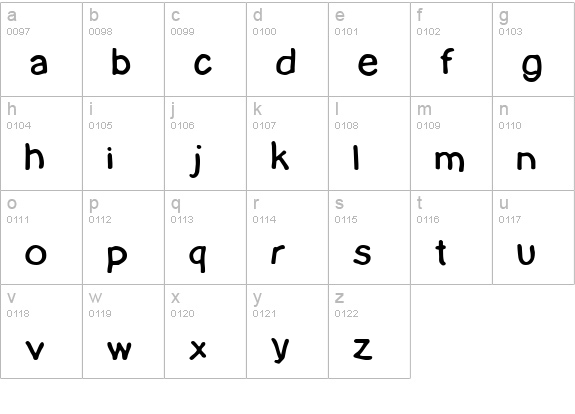
Lamebrain -BRK- Font Details
Lamebrain -BRK- font is a playful and quirky typeface that adds a touch of whimsy to any design project. With its bold and rounded letterforms, this font is perfect for creating eye-catching headlines, logos, and social media graphics. Featuring a unique mix of uppercase and lowercase letters, Lamebrain -BRK- font exudes a friendly and approachable vibe. Its slightly uneven strokes and imperfect curves give it a hand-drawn feel, making it ideal for adding a personal touch to your designs. One of the best things about Lamebrain -BRK- font is that it is completely free! Yes, you heard that right. This fantastic font is freely available to download at FontsMarket.com. Whether you're a professional graphic designer or a hobbyist looking to add some flair to your projects, you can access this font without spending a dime. With Lamebrain -BRK- font, the possibilities are endless. Let your creative instincts run wild as you experiment with different colors, sizes, and layouts. Use it to create captivating posters, invitations, and advertisements that will grab attention and leave a lasting impression. Don't miss out on this opportunity to enhance your designs with Lamebrain -BRK- font. Head over to FontsMarket.com now and download it for free. Unleash your creativity and let Lamebrain -BRK- font take your designs to the next level.